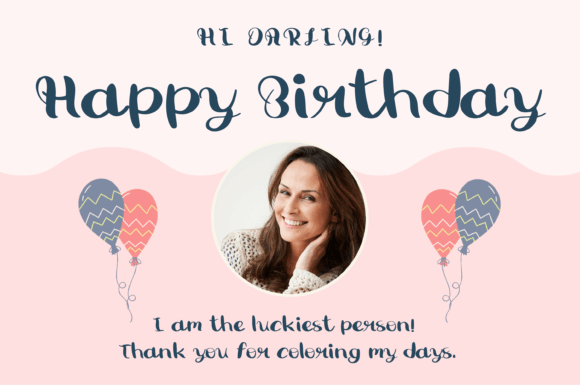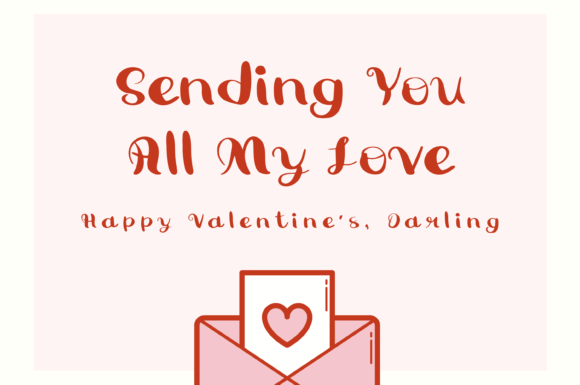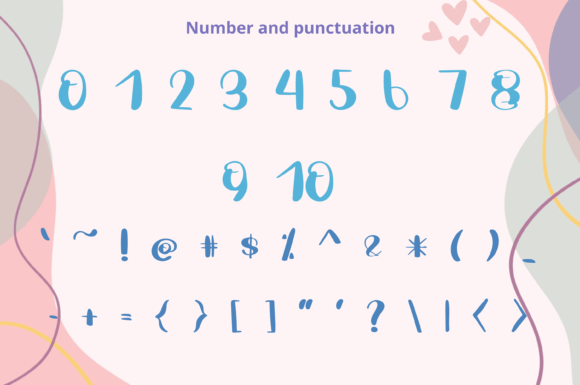
Introduction to Good Darling Font
Good Darling is a whimsical and clean handwritten font.
Key Features of Good Darling Font
Why Choose Good Darling Font?
Good Darling Font offers exceptional quality and versatility, making it a valuable addition to your design toolkit. Whether you’re creating for personal projects or commercial use, Good Darling Font delivers professional results.